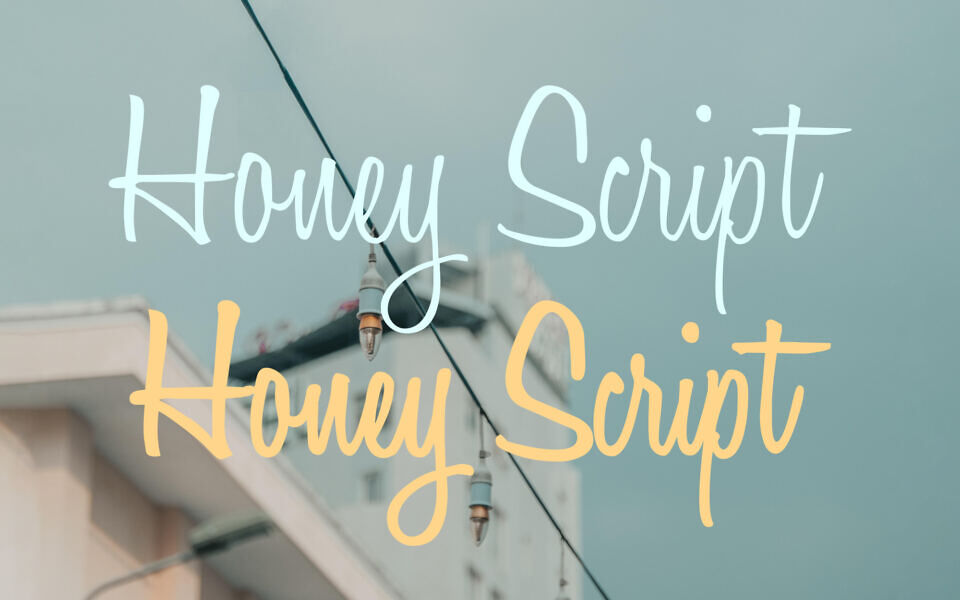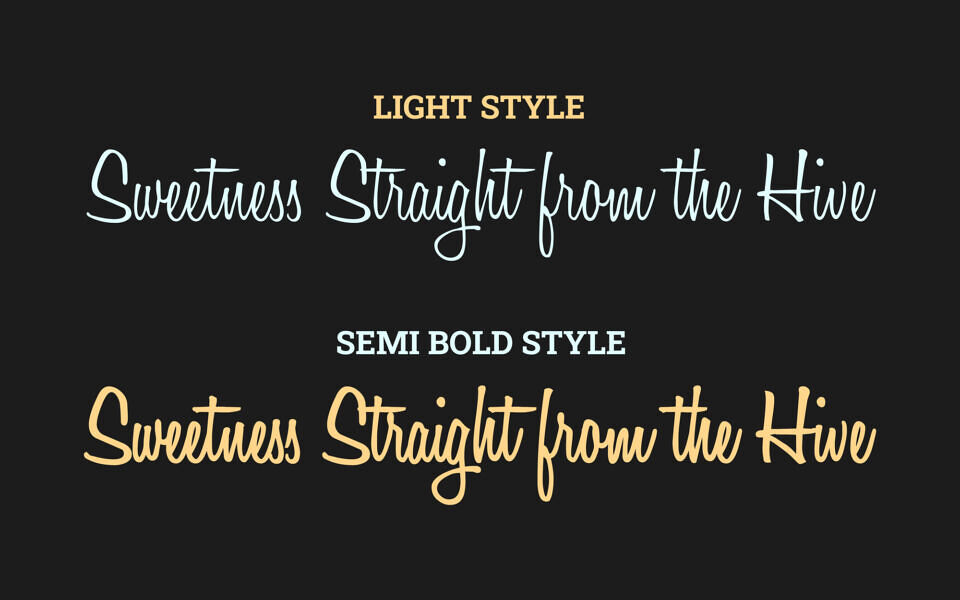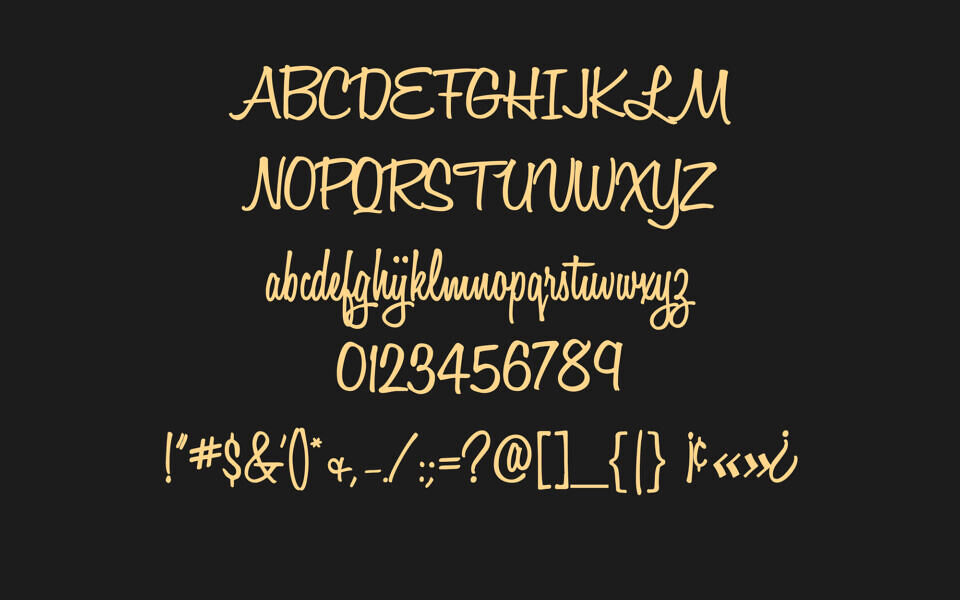
Honey Script is an elegant handwriting typeface that radiates warmth and personal charm. Characterized by its fluid, cursive strokes and bouncing baseline, it captures the effortless elegance of modern calligraphy. Its soft curves and organic loops make it an ideal choice for projects requiring a “human touch,” such as wedding invitations, lifestyle branding, or social media graphics.
Balanced between playful and sophisticated, Honey Script ensures high legibility while maintaining an upbeat, friendly aesthetic that feels both approachable and stylishly authentic.